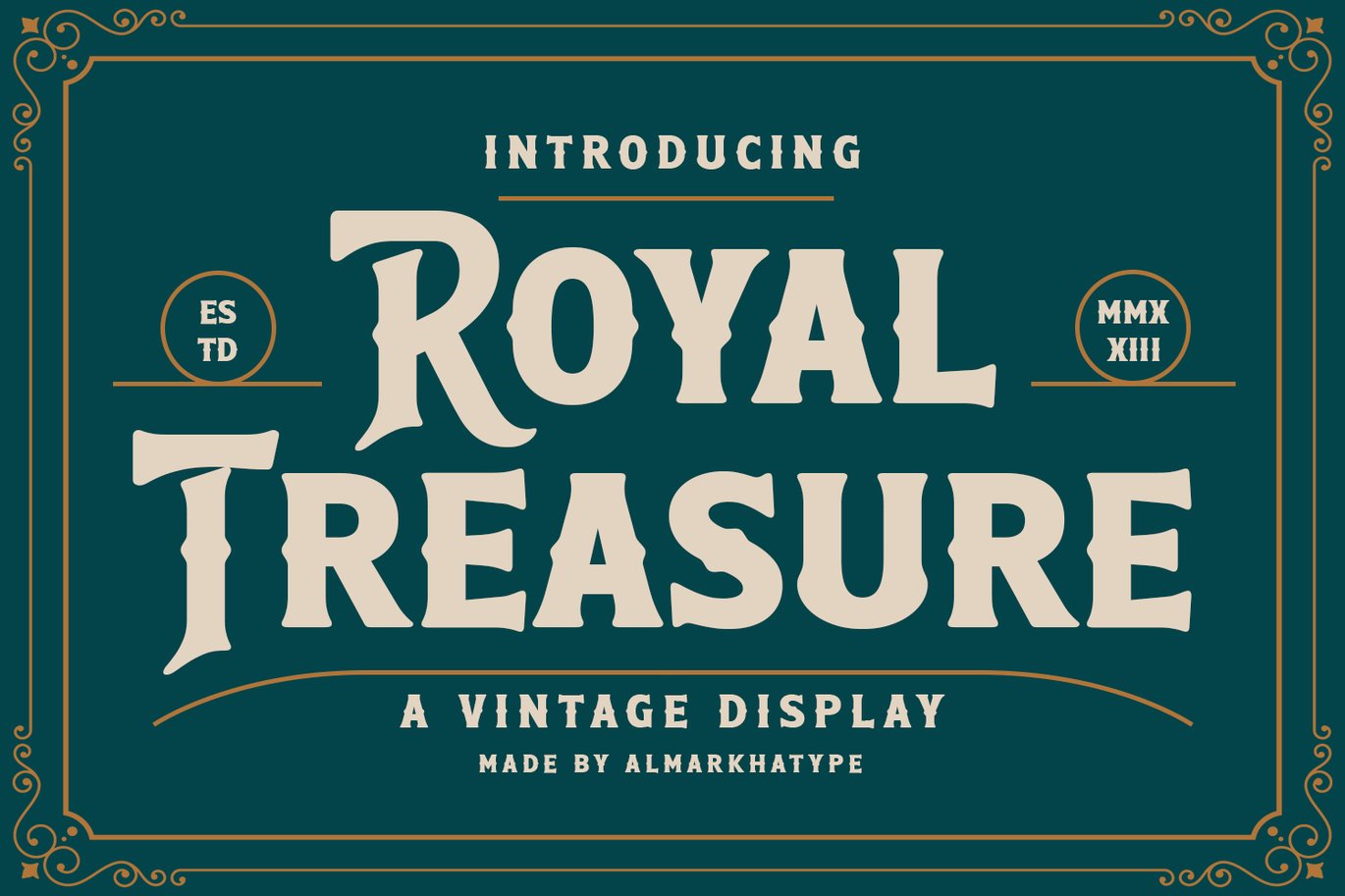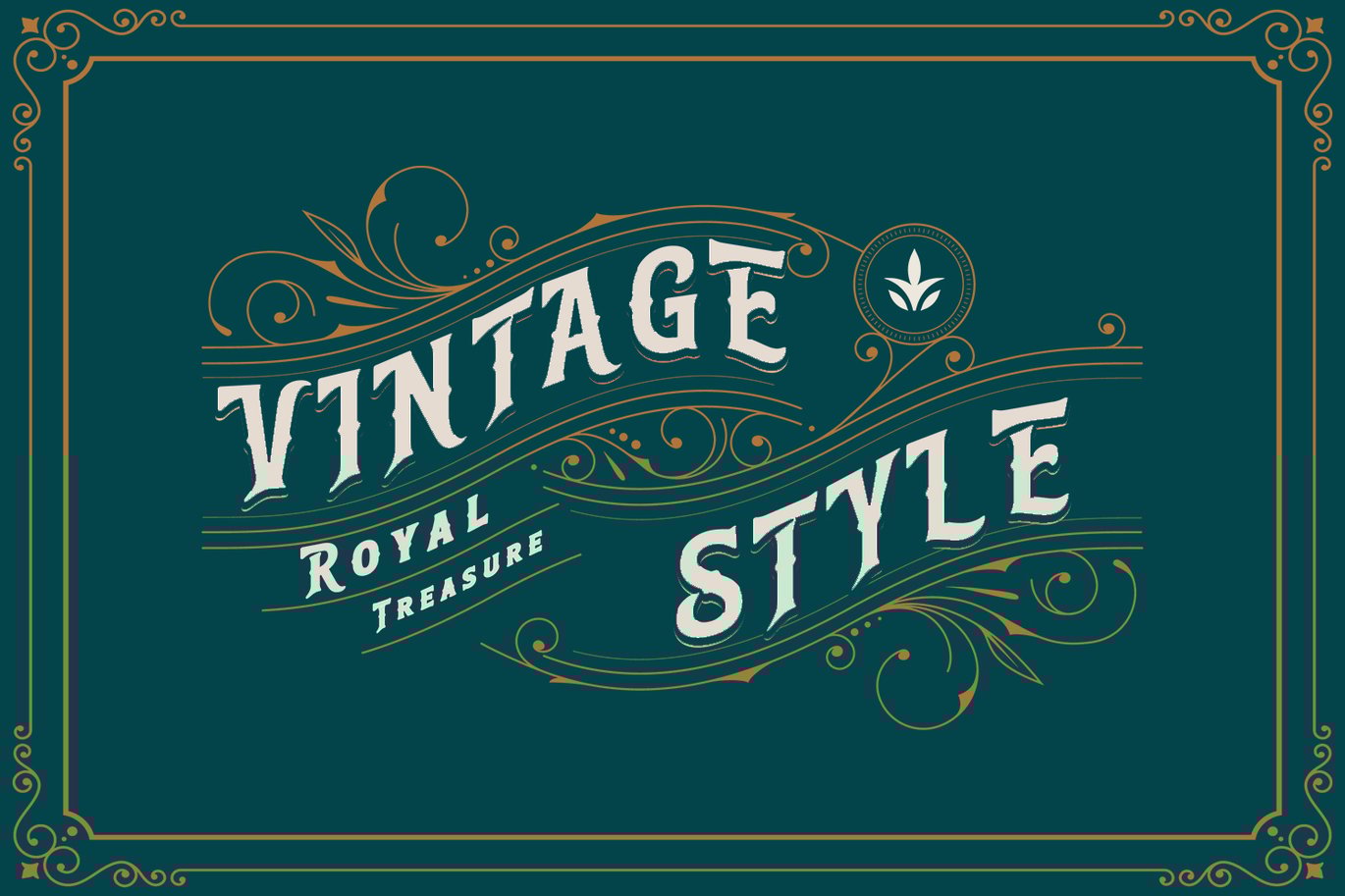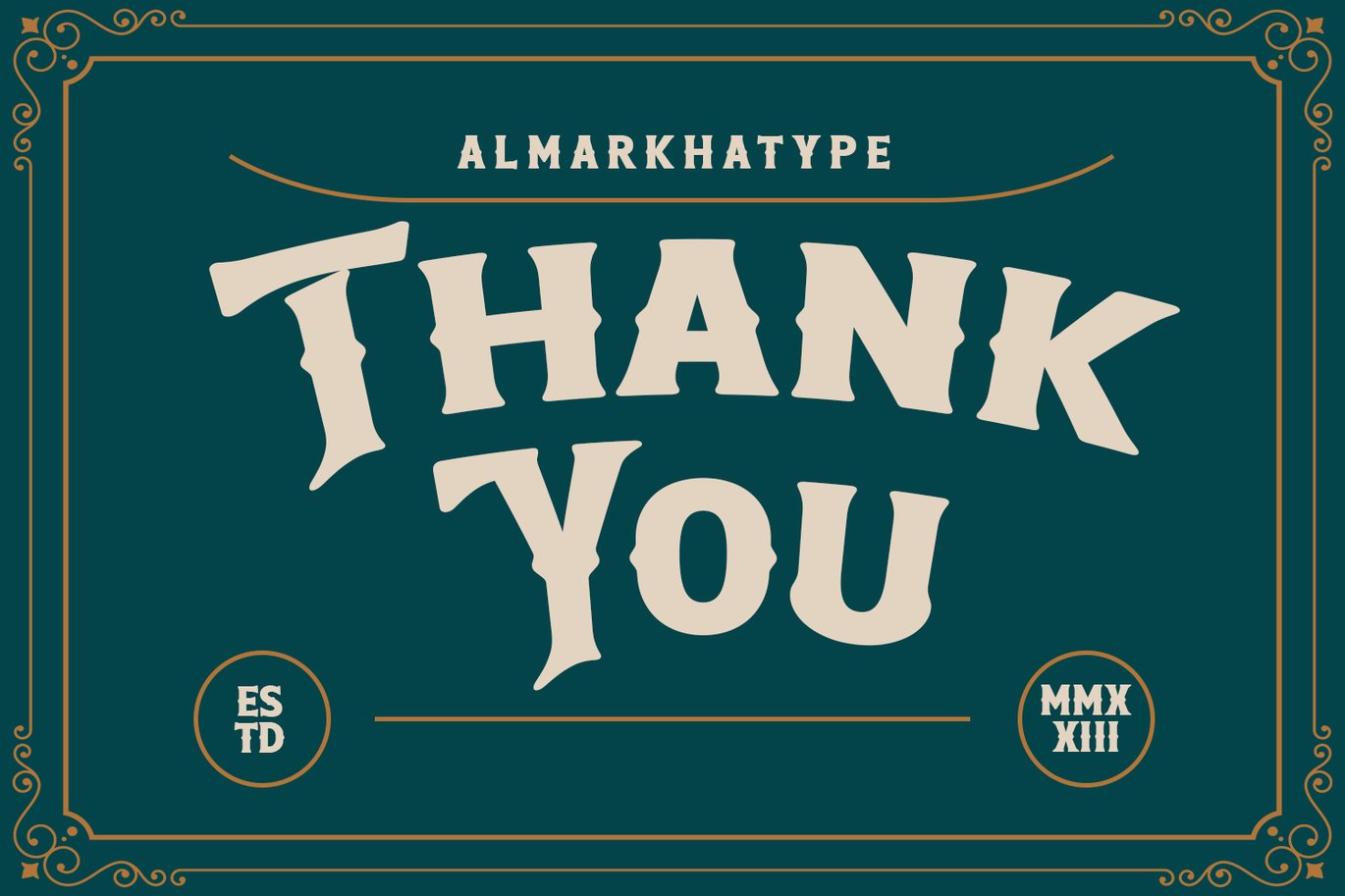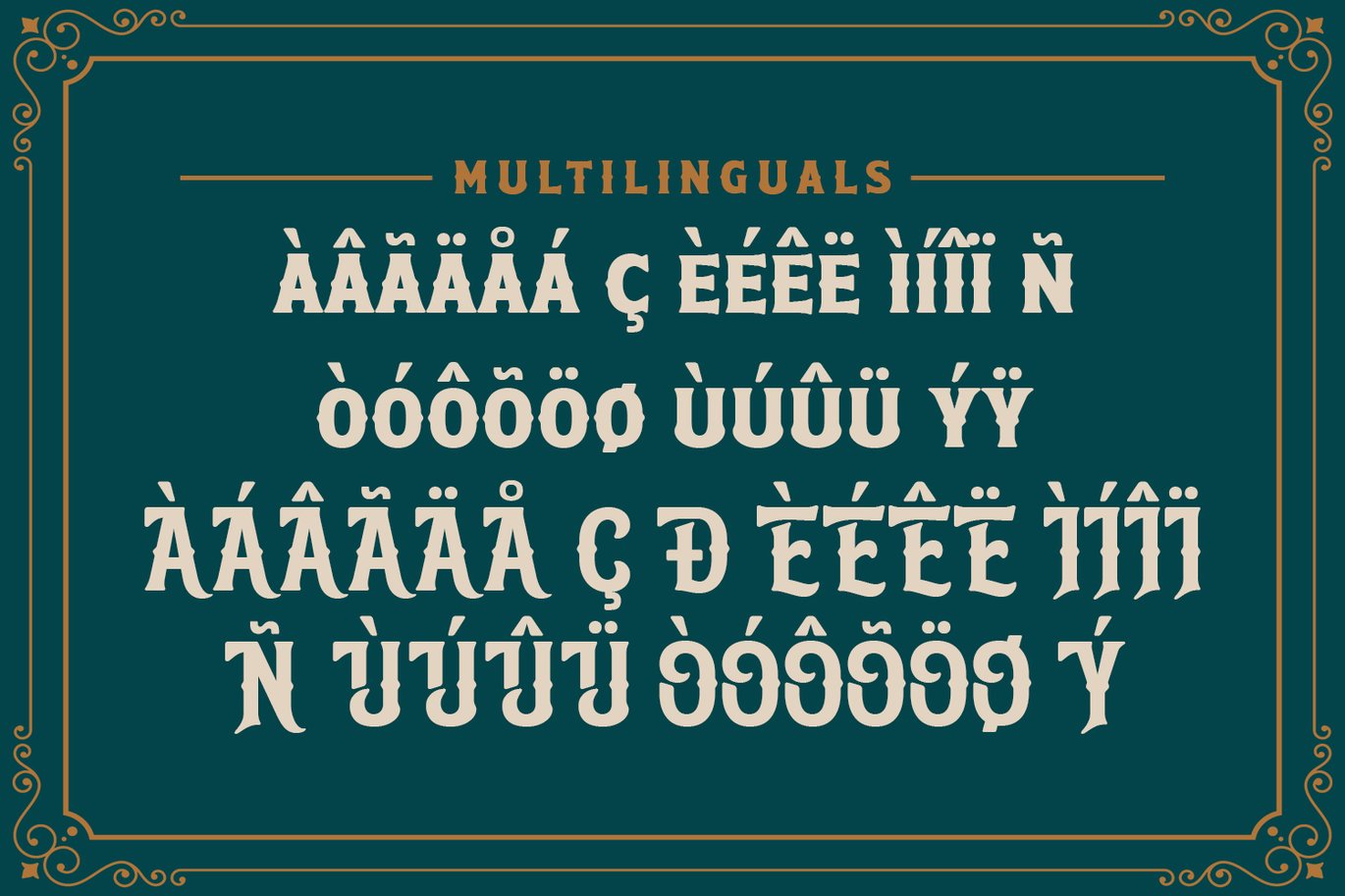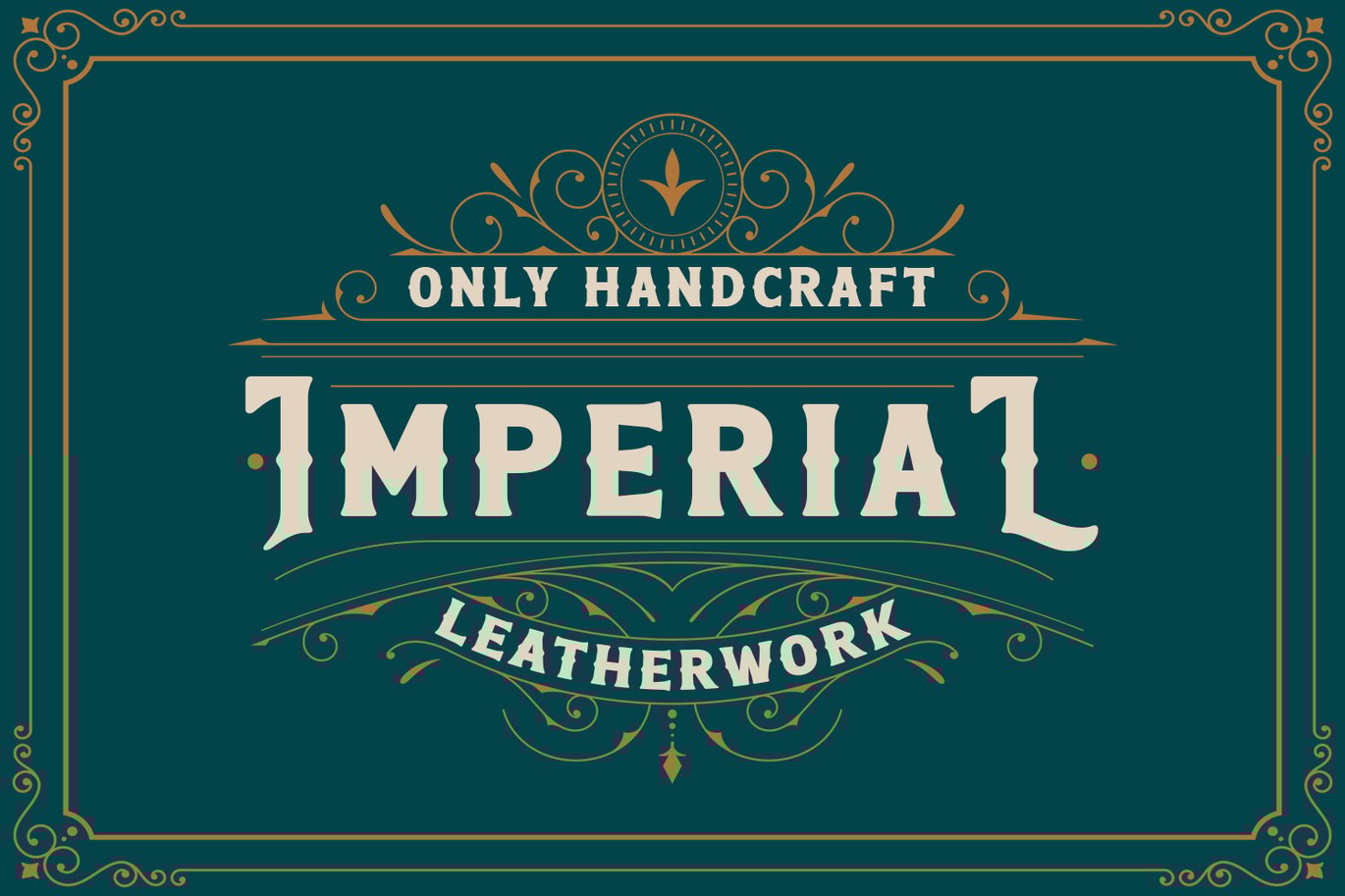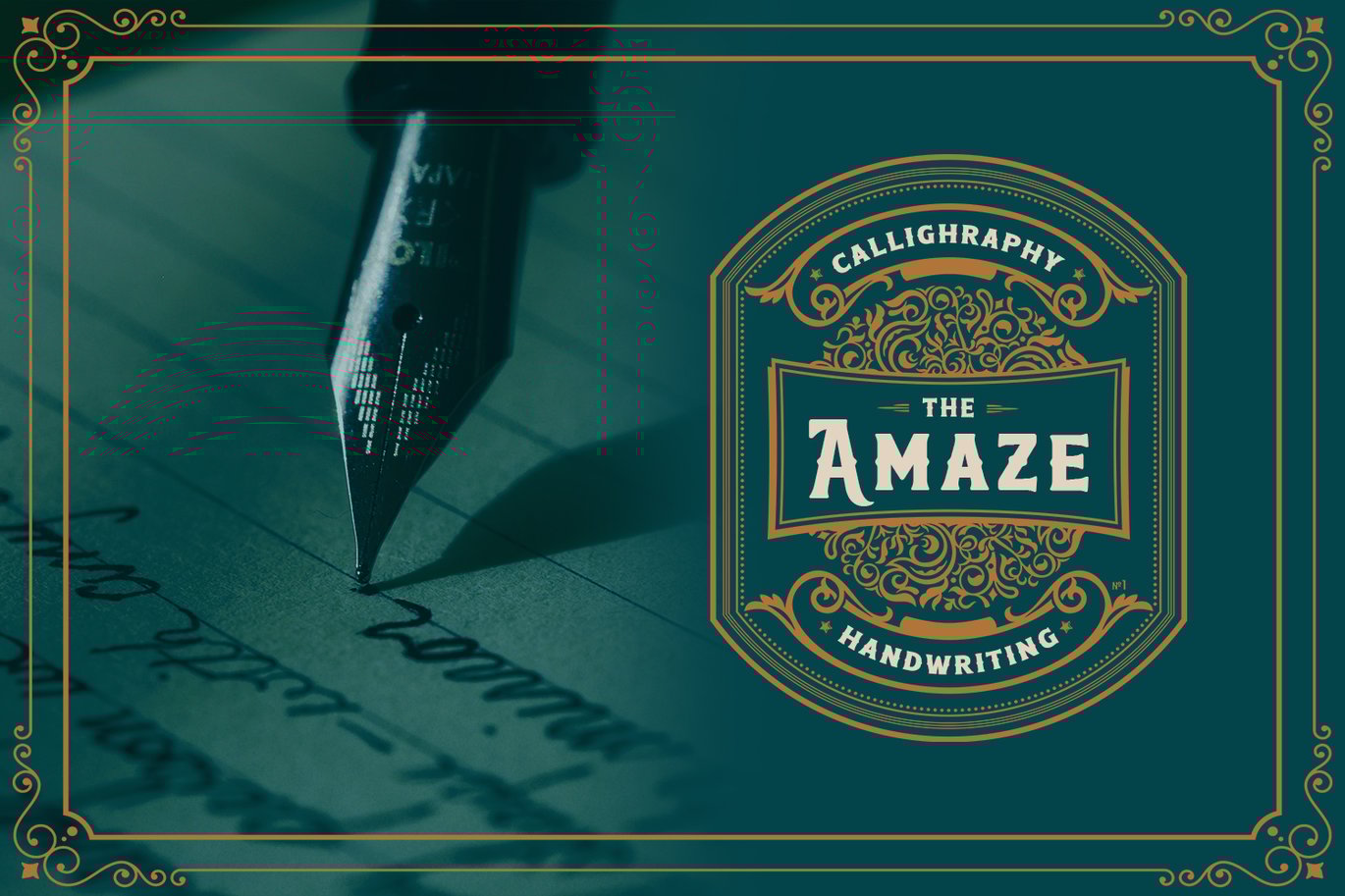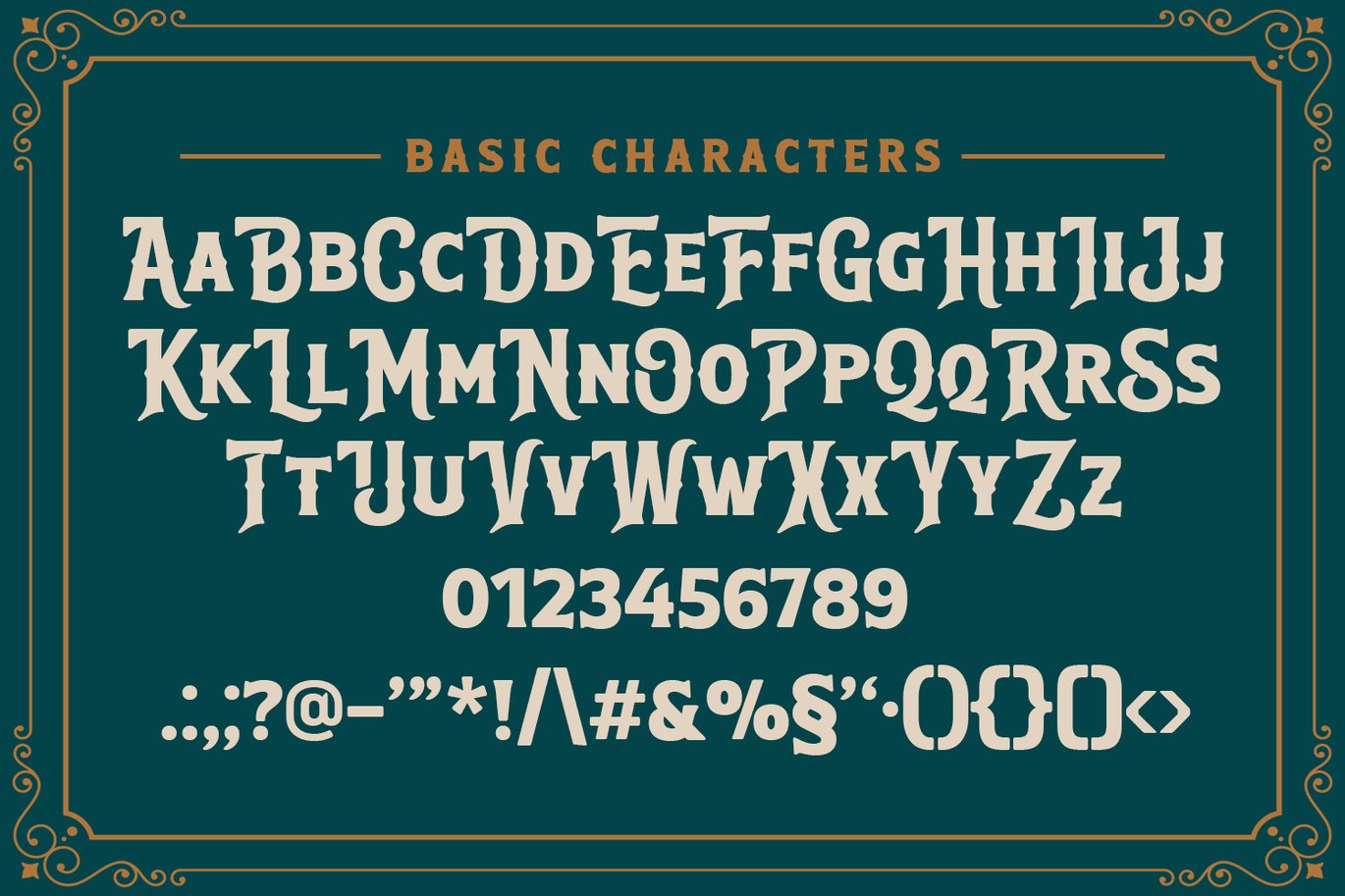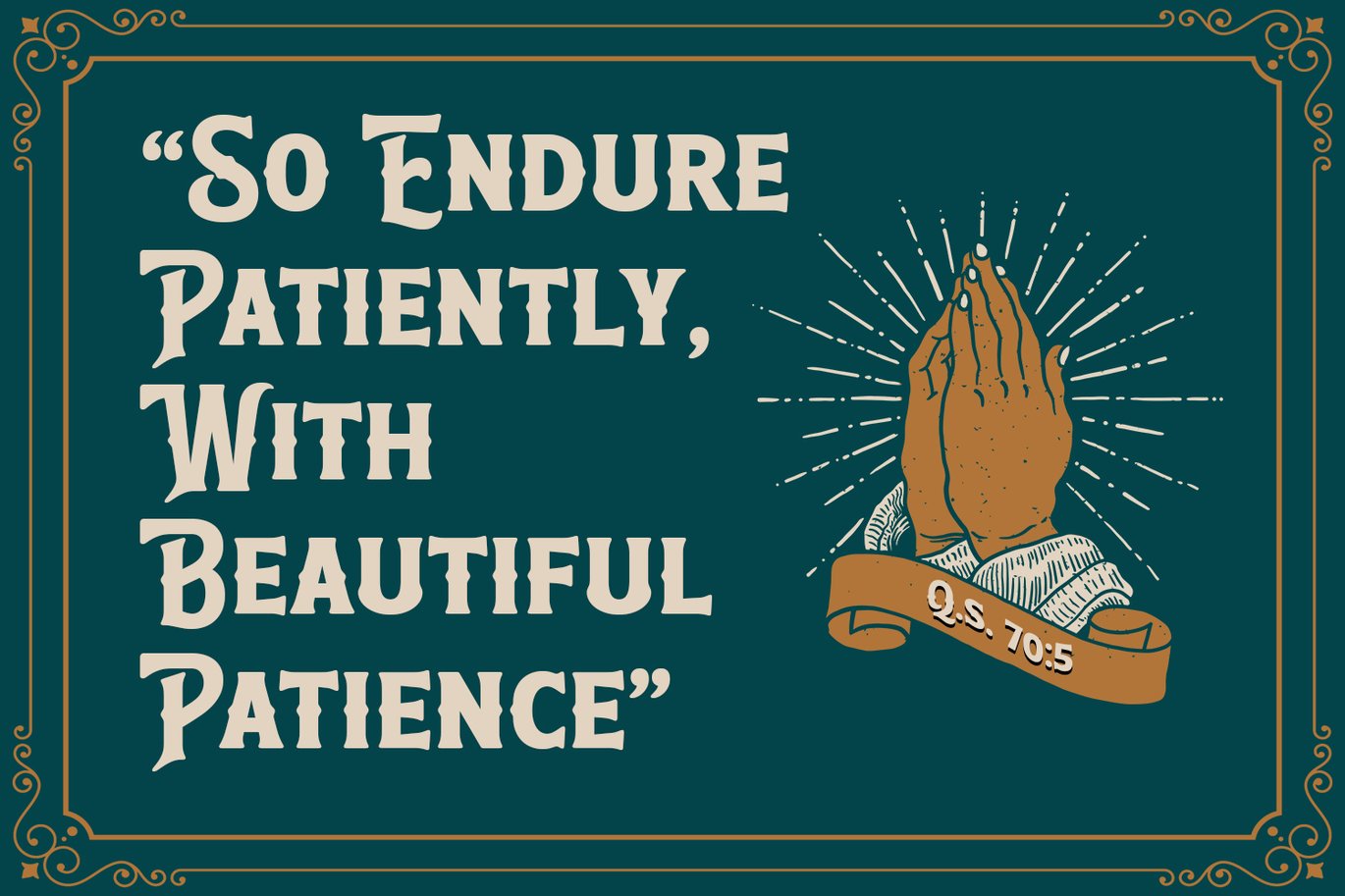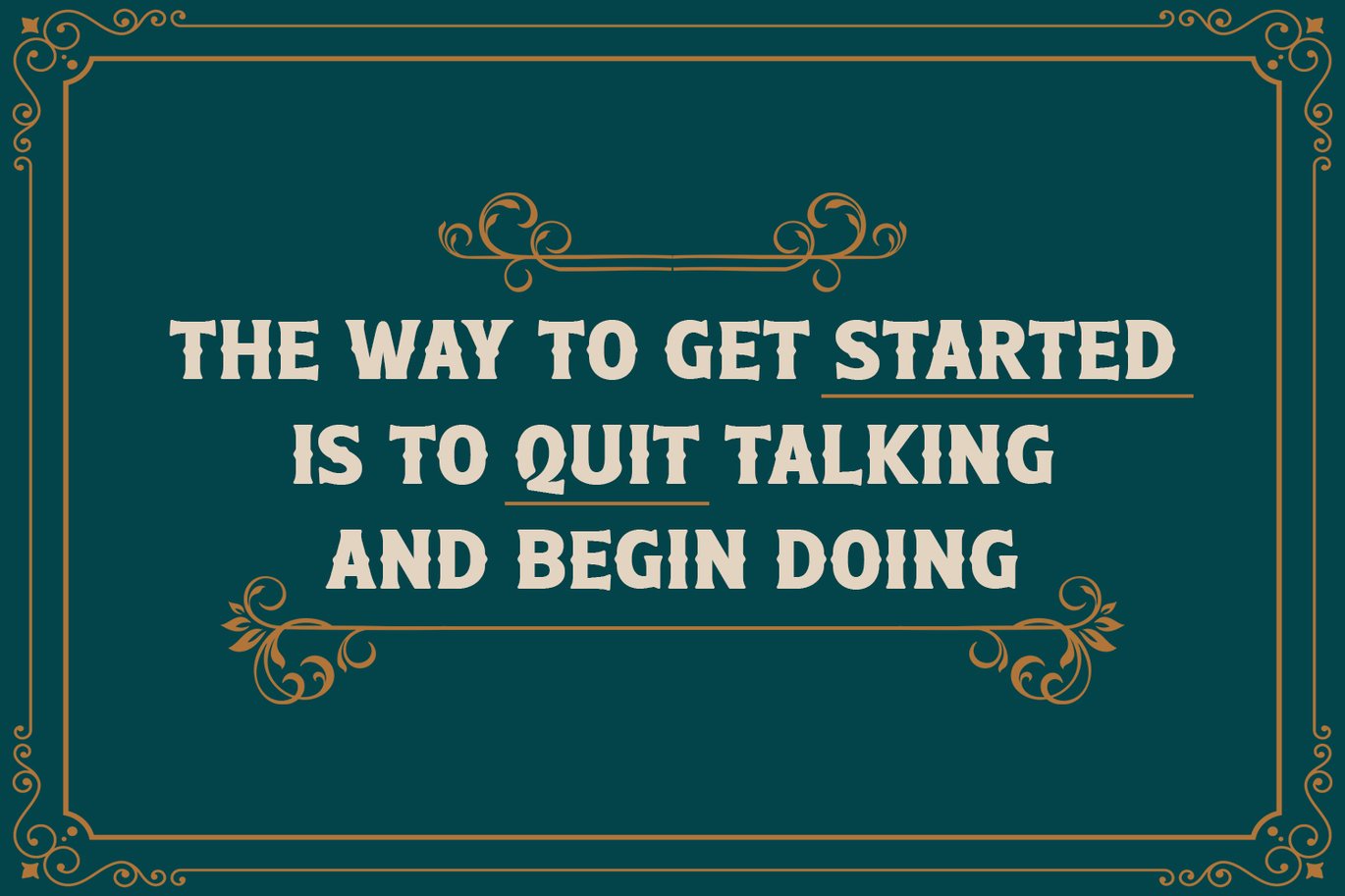
Royal Treasure – Royal Vintage Font
Introducing Royal Treasure, our latest display typeface that radiates a distinct vintage allure, ideal for enhancing your logotypes with intrigue. Featuring special alternative glyphs and multilingual support, it’s the top choice for crafting captivating designs that stand out. Drawing inspiration from decorative arts and architectural movements, Royal Treasure is perfect for diverse projects such as designs, headlines, posters, logos, badges, t-shirts, and beyond. Whether for posts, certificates, labels, or any other application, Royal Treasure guarantees to elevate the visual appeal of your designs. Unlock the beauty of your creations with Royal Treasure today!
- International Accent